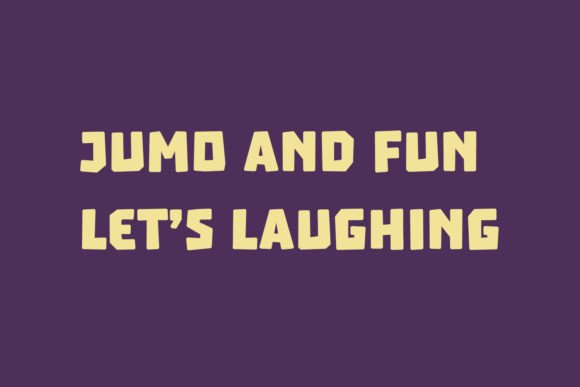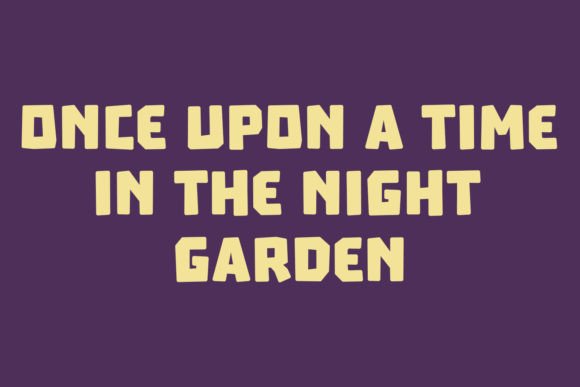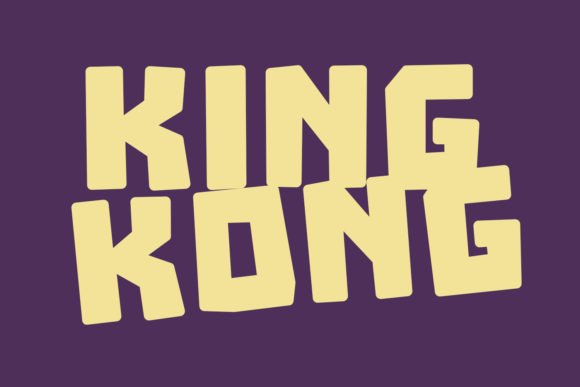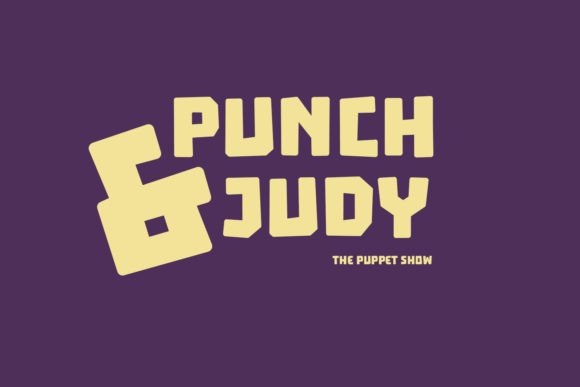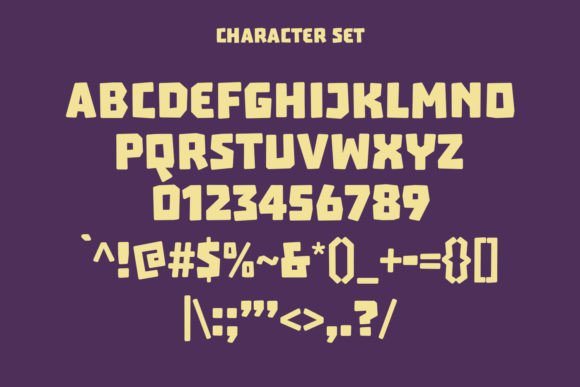
The Groben Font: A Bold and Modern Display Font for Impactful Designs
I’ll never forget the time I was working on a project for a client who wanted a bold and eye-catching logo. I had spent hours browsing through font libraries, but nothing seemed quite right. That was when I stumbled upon the Groben font. Its clean lines, geometric shapes, and confident letterforms immediately caught my attention. I knew right then and there that it was the perfect fit for the project.
Groben is a modern display font that combines contemporary design with bold and confident letterforms. Its sleek and sophisticated aesthetic makes it ideal for creating impactful headlines, titles, logos, and branding that demand attention.
An Honest Review of Groben Font
What I Love About Groben Font
- ✨ Bold and confident letterforms that make a statement
- ✅ Clean lines and geometric shapes for a sleek and sophisticated look
- 🌈 Versatile and adaptable for use in a variety of design projects
- 💻 Excellent for digital use, with clear and legible letterforms at various sizes
While Groben font is an excellent choice for many design projects, there are a few things to keep in mind:
- 🤔 Limited use for body text due to its bold and display nature
- ⚠️ May not be suitable for small font sizes due to its geometric and minimalist design
The Backstory of Groben Font
Groben font was designed by a team of typographers who wanted to create a bold and modern display font that would make a statement. Inspired by the geometric shapes and clean lines of modern architecture, they crafted a font that is both sleek and sophisticated. The result is a font that is perfect for creating impactful headlines, titles, logos, and branding that demand attention.
Q: What is Groben font best used for?
A: Groben font is best used for creating impactful headlines, titles, logos, and branding that demand attention. Its bold and confident letterforms make it perfect for making a statement.
Q: Can I use Groben font for body text?
A: While Groben font can be used for body text, it’s not the most ideal choice due to its bold and display nature. It’s best used for headlines, titles, and other display text.
Q: Is Groben font suitable for small font sizes?
A: Groben font may not be the best choice for small font sizes due to its geometric and minimalist design. It’s best used at larger font sizes where its bold and confident letterforms can shine.